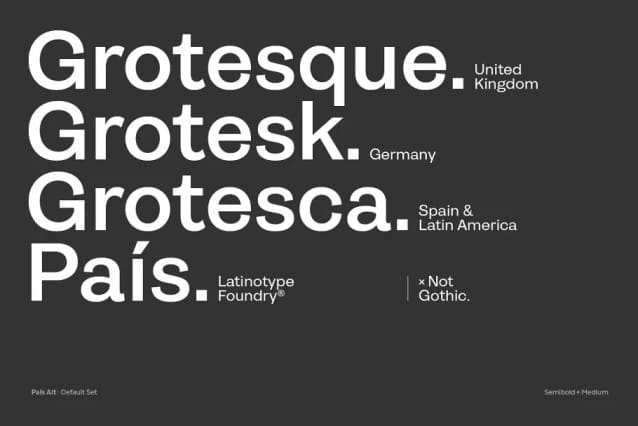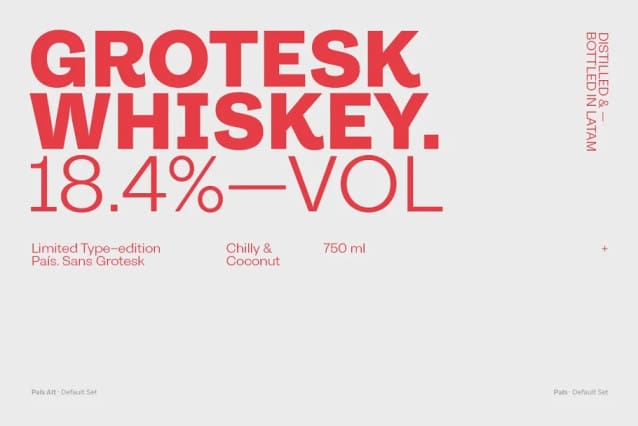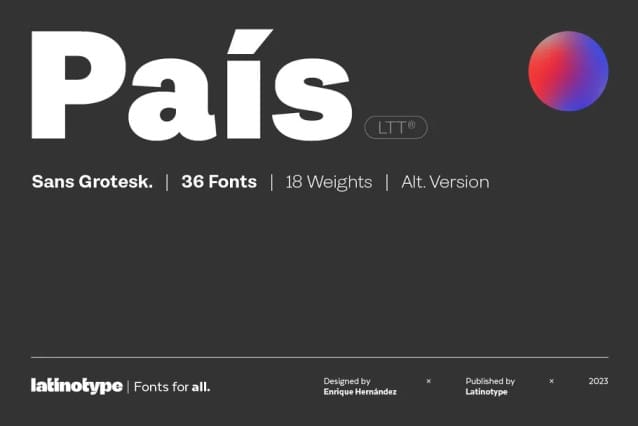
Pais Font Family
Pais Font Family is a contemporary and modern grotesque sans serif, inspired by the grotesques of the early 20th century, but more geometric and with a wider x-height than its referents; making it ideal for the current times.
“País” comes in 2 versions, each with 9 weights, from thin to black, and matching italics, for a total of 36 fonts.
The standard sans serif version is fresh, clean, and more ideally neutral. It’s a perfect choice for editorial design, branding, headlines, or any other piece of graphic design.
The “País Alt” version has more expressive and modern characters, with some giving it a much more playful image. It is ideal for logos, packaging, web and television use.
País contains a total of 682 characters that make it possible to write in more than 200 Latin languages ​​and basic Cyrillic.